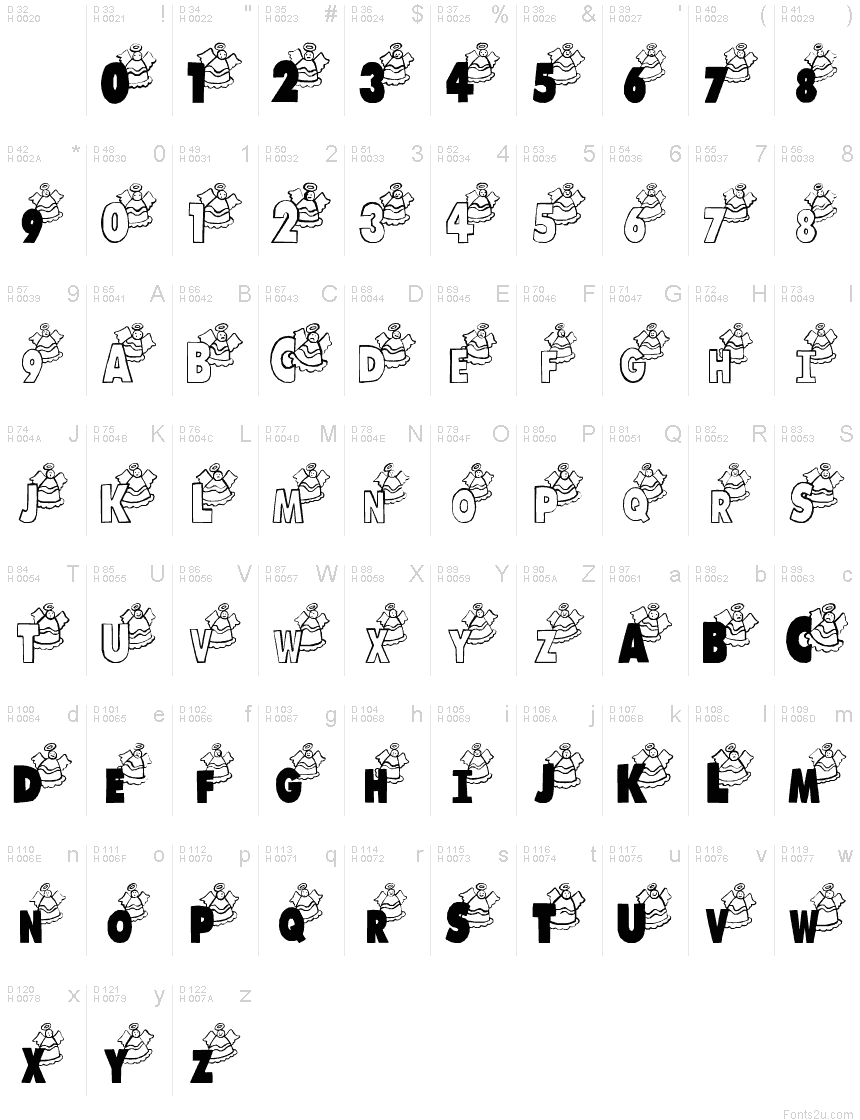
LosAngeles by Manfred Klein of Mainhattan is a free illustrated display font built from heavy, uneven capitals and recurring line-drawn angels. The solid letters have blunt, slightly lumpy silhouettes, and the haloed figures bring wings, robes, and a cheerful hand-sketched quality to the design.
Children's entertainment and church event graphics are very different settings, yet both suit its friendly angel motif. It also belongs on Christmas cards and playful merchandise. Here the figures can become part of an emblem or scene, rather than serving only as decoration around ordinary lettering.